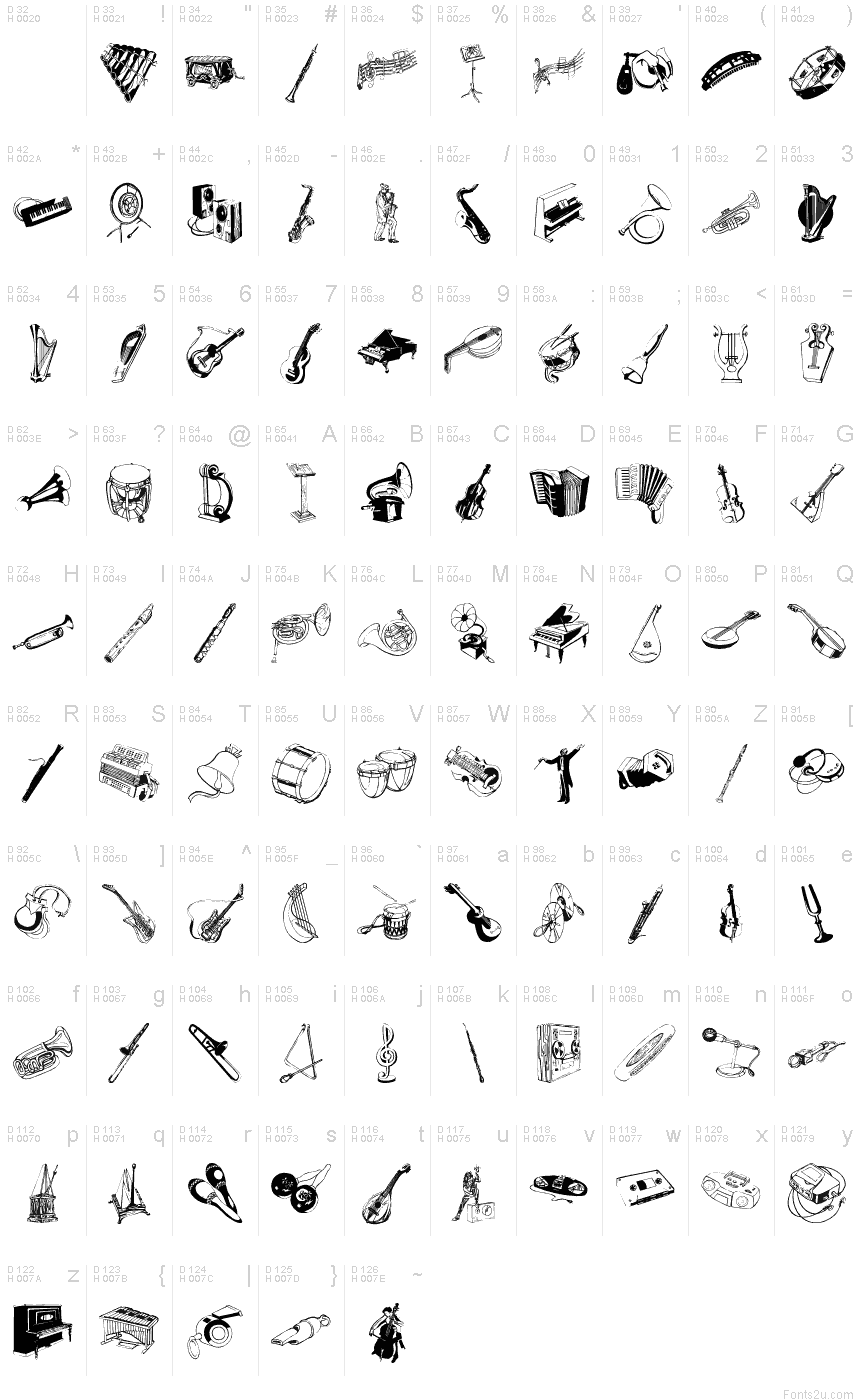
Music Museal by Manfred Klein is a free music-themed dingbat font built from finely drawn instruments and performance objects. Detailed illustrations mix rounded forms with wiry outlines, and hand-rendered shading gives the collection a vintage catalog illustration quality.
A concert poster is the clearest fit. The pictorial symbols can also shape record packaging, festival merchandise, and music-school materials by turning familiar instruments into decorative marks. In publishing, they could punctuate chapter openings or form spot illustrations in music-history articles.